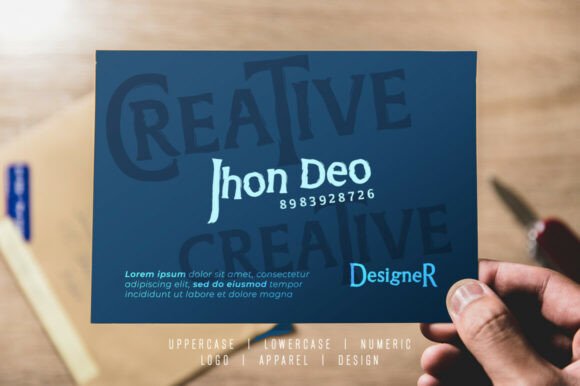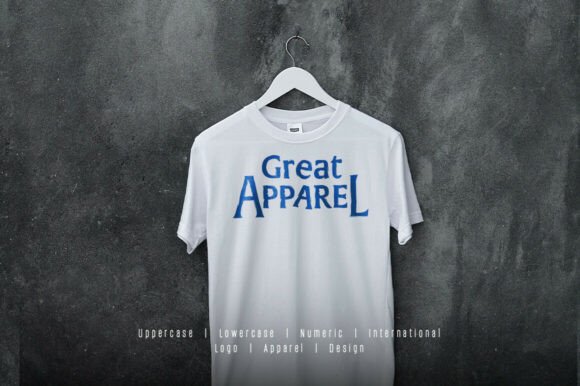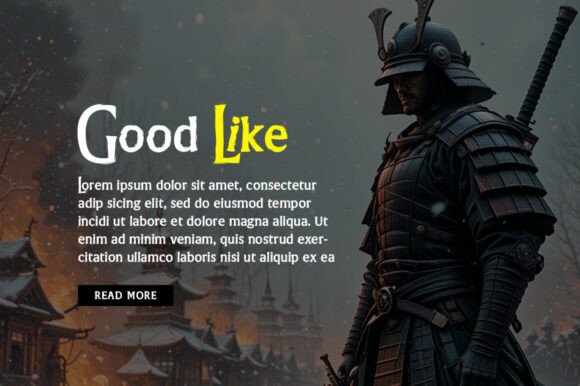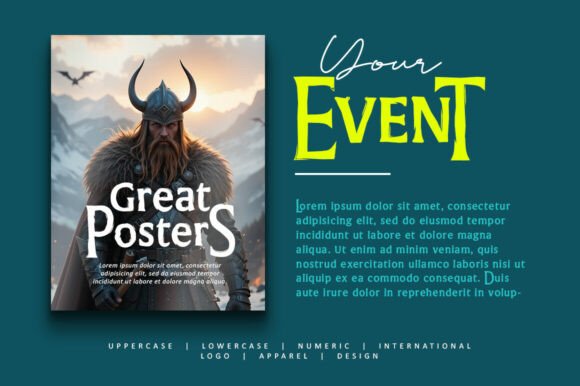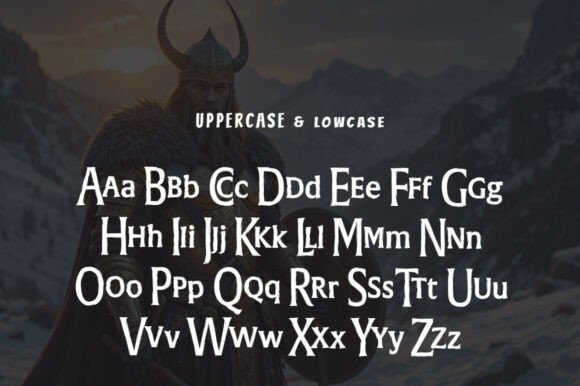
Unleash the Power of Norse Mythology with Dark Viking Font
Are you looking for a font that embodies the strength and mystery of the Viking era? Look no further than the Dark Viking Font, a bold and rugged display font that brings Norse mythology to life. Inspired by the legends of the Vikings and the medieval aesthetics of the time, this font is perfect for designers and crafters who want to add a touch of epic fantasy to their projects.
The Inspiration Behind Dark Viking Font
The Dark Viking Font is inspired by the rich history and mythology of the Viking era. The font’s design is characterized by powerful strokes and commanding character, evoking the sense of strength and courage that defined the Viking warriors. The sharp, uneven serifs and dramatic proportions of the font create a striking presence that’s both mysterious and heroic, perfect for fantasy-themed projects, game titles, epic movie posters, ancient maps, and warrior branding.
Key Features of Dark Viking Font
• Bold and Rugged Design: The Dark Viking Font features a bold and rugged design that’s perfect for making a statement. Its powerful strokes and commanding character make it ideal for headlines, titles, and branding.
• Sharp, Uneven Serifs: The font’s sharp, uneven serifs add a touch of medieval flair, giving it a unique and distinctive look.
• Dramatic Proportions: The font’s dramatic proportions create a striking presence that’s both mysterious and heroic.
• Perfect for Fantasy-Themed Projects: The Dark Viking Font is perfect for fantasy-themed projects, including game titles, epic movie posters, ancient maps, and warrior branding.
Uses for Dark Viking Font
The Dark Viking Font is a versatile font that can be used in a variety of projects, including:
• Game Titles: Add a touch of epic fantasy to your game titles with the Dark Viking Font.
• Epic Movie Posters: Create striking movie posters with the Dark Viking Font, perfect for fantasy and adventure films.
• Ancient Maps: Add a touch of authenticity to your ancient maps with the Dark Viking Font.
• Warrior Branding: Create bold and striking branding for your warrior-themed projects with the Dark Viking Font.
• Fantasy-Themed Projects: The Dark Viking Font is perfect for any fantasy-themed project, including book covers, comics, and graphic novels.
Why Choose Dark Viking Font?
There are many fonts available that claim to evoke the spirit of the Viking era, but the Dark Viking Font stands out from the rest. Here are just a few reasons why:
• Unique Design: The Dark Viking Font features a unique design that’s both bold and rugged, making it perfect for making a statement.
• High-Quality Design: The font is designed to the highest standards, ensuring that it looks great in any project.
Font Name Dark Viking Font
Author yantodesign
The Dark Viking Font is a powerful and versatile font that’s perfect for designers and crafters who want to add a touch of epic fantasy to their projects. With its bold and rugged design, sharp uneven serifs, and dramatic proportions, this font is sure to make a statement. Whether you’re working on a game title, epic movie poster, ancient map, or warrior branding, the Dark Viking Font is the perfect choice.